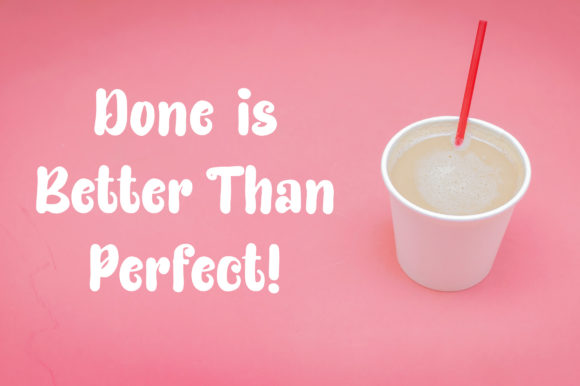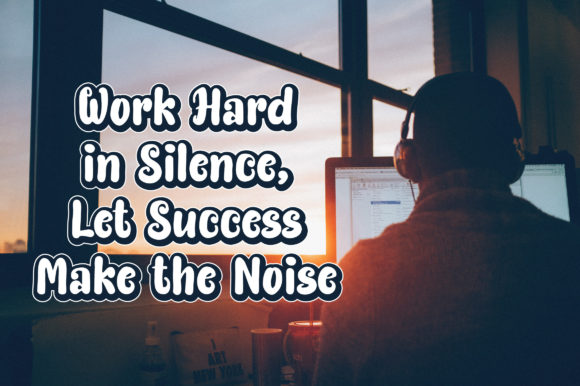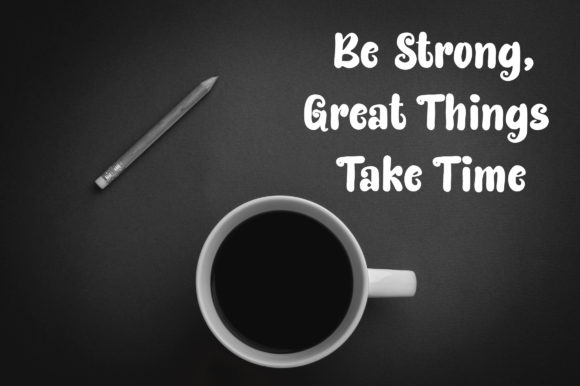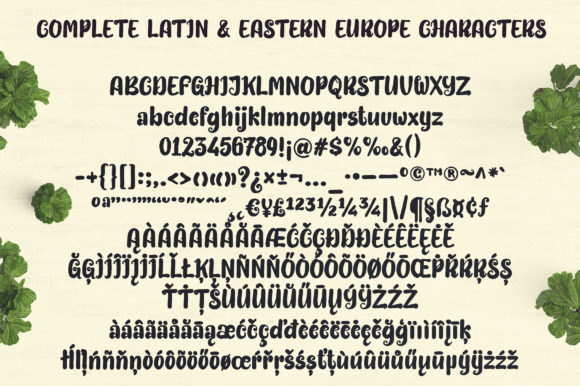
The Perfect Match for Your Design
Have you ever stared at a blank canvas, trying to find the perfect font to bring your design to life? You scroll through endless options, but nothing seems quite right. That’s where the Bittermilk Font comes in – a cute, bold handwritten font that’s sure to add a striking touch to your work.
With its natural shape and unique character, the Bittermilk Font is the perfect addition to any design project. Whether you’re creating a logo, a poster, or a social media graphic, this font is sure to make a statement. Its versatility and charm make it a valuable asset for designers looking to add a little personality to their work.
So why settle for a generic font when you can use the Bittermilk Font to make your designs truly stand out? This font is a game-changer for anyone looking to add a touch of whimsy and creativity to their work.
- Font Family: Bittermilk Font is a custom-designed font, available in both Regular and Bold weights.
- Unique Characteristics: Bittermilk Font features a unique blend of modern and vintage elements, with a distinctive, hand-crafted feel that sets it apart from other fonts.
Bittermilk Font Review
Overall, I’d say the Bittermilk Font is a decent addition to any designer’s toolkit. Here’s a breakdown of what I think works well and what doesn’t.
- Unique aesthetic: The Bittermilk Font has a distinctive, modern feel that’s perfect for branding and advertising projects.
- Good legibility: While it may not be the most readable font, it’s still clear and easy to decipher, especially at larger sizes.
- Wide character set: The font includes a wide range of characters, including international glyphs, which is a big plus for designers who work with clients from diverse backgrounds.
- Limited font weights: While the font has a few weights, it’s not as extensive as some other fonts on the market.
- No italic or oblique styles: If you need to create italic or oblique text, you may need to use a different font or rely on software tricks.
- Some characters may not be perfect: While the font is generally well-designed, some characters may not be as polished as others.
Overall, the Bittermilk Font is a solid choice for designers who want a modern, unique font for their projects. While it has some limitations, it’s still a great addition to any designer’s toolkit.
Tip: Use the Bittermilk Font for headings and titles to add a touch of elegance to your designs.
Tip: Use the Bittermilk Font for typography-heavy designs, such as posters and brochures.
Tip: Use the Bittermilk Font for presentations and reports to add a touch of sophistication.
The Bittermilk Font is ideal for:
- Restaurant menus and branding
- Event posters and promotional materials